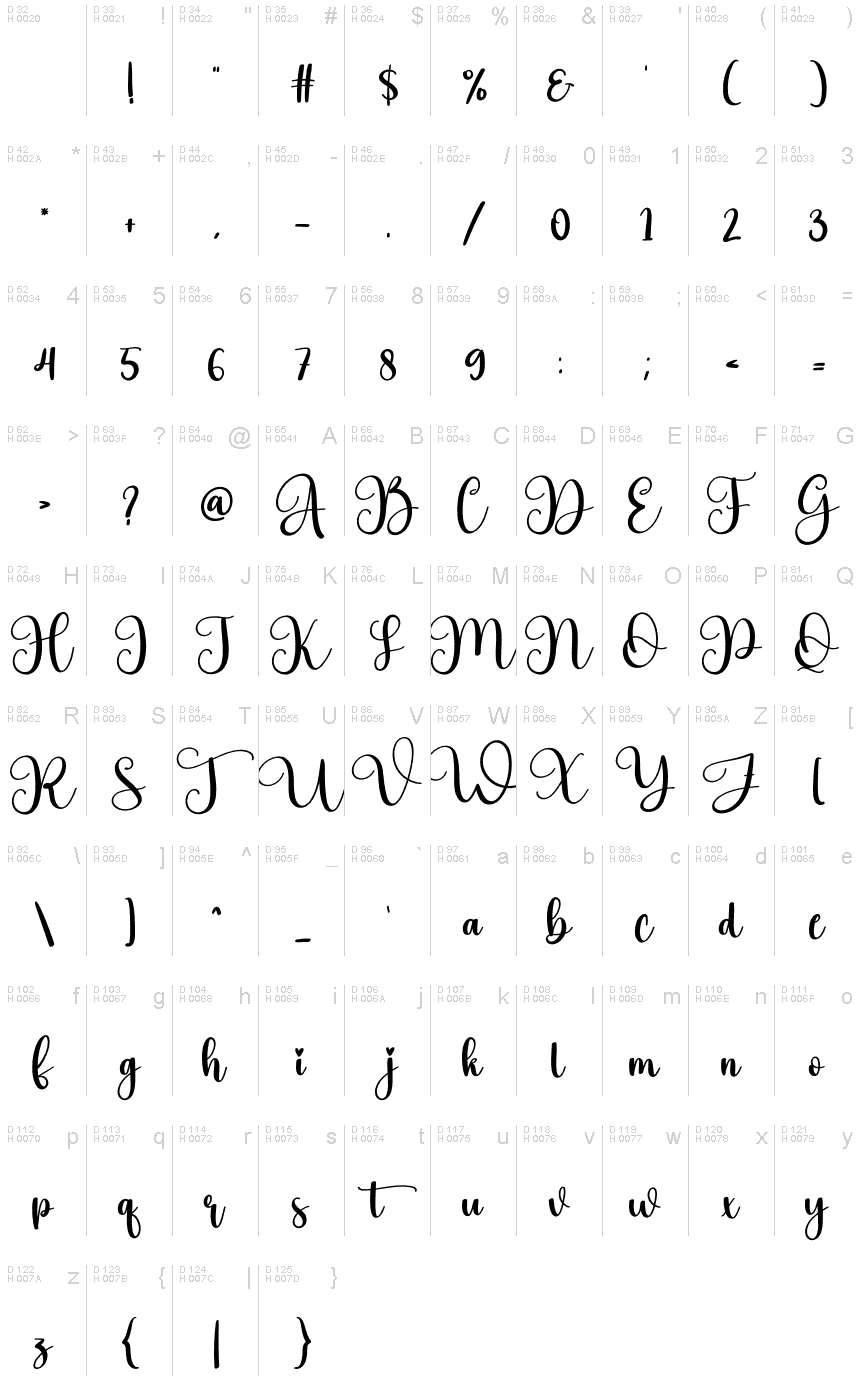
Action
With its adorable calligraphy style, the Action font by Scratchones is a perfect choice for projects that require a touch of cuteness and elegance.
Its delicate strokes and flowing curves make it ideal for creating romantic Valentine's Day cards, love letters, or wedding invitations. This feminine font adds a charming and playful feel to any design, making it suitable for children's book illustrations, greeting cards, or even logo designs for beauty and fashion brands.
The Action font brings an enchanting vibe to your creative endeavors while capturing attention with its irresistible charm.